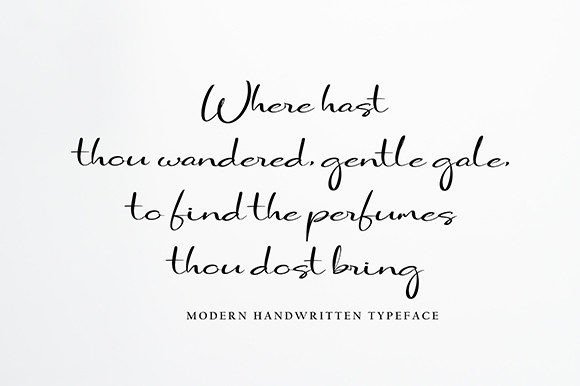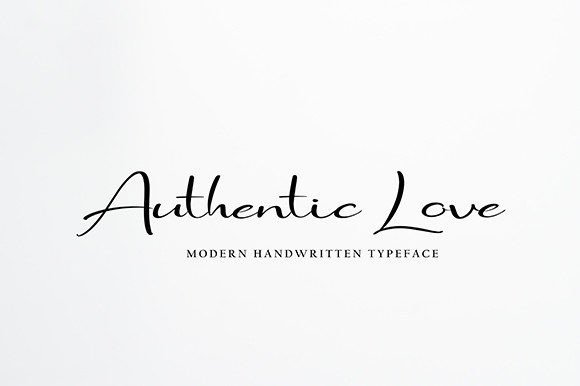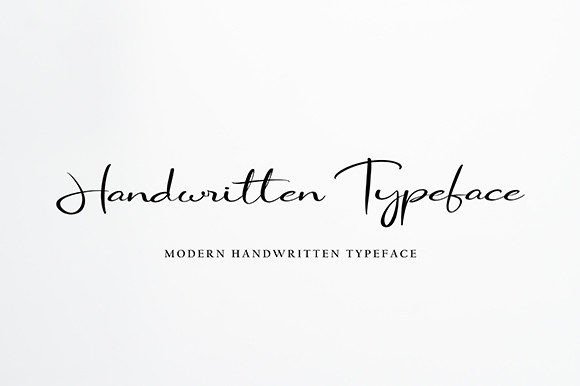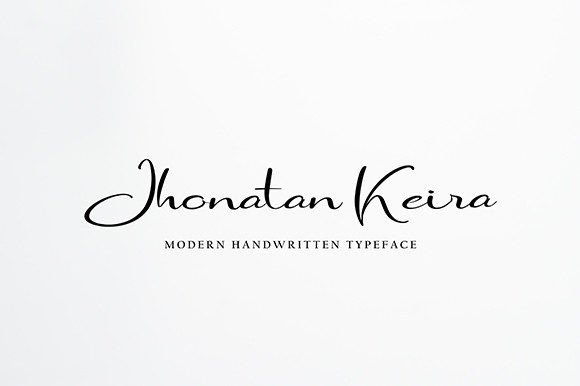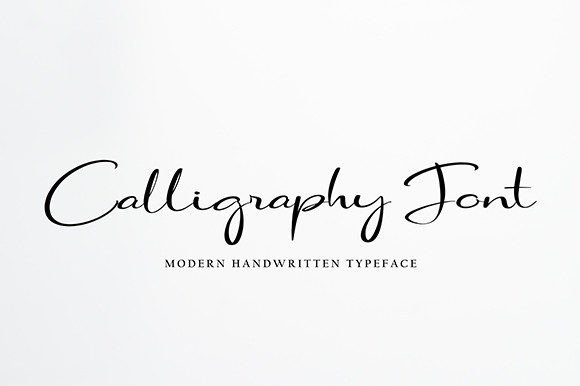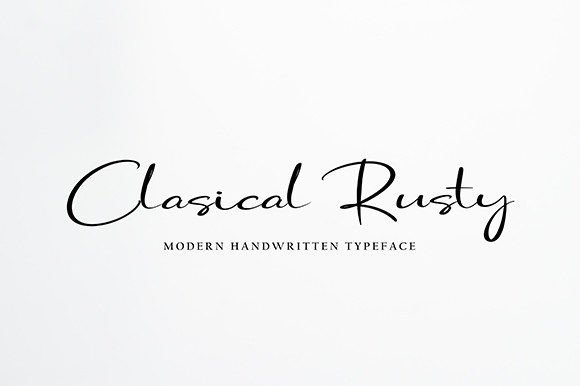
Discover the Elegance of Derribme Font: Elevate Your Designs with a Timeless Handwritten Style
Are you on the lookout for a font that can add a touch of elegance and sophistication to your designs? Look no further than Derribme Font, a beautiful, flowing handwritten font that is sure to capture your heart. With its distinct and timeless style, Derribme is perfect for designers and crafters who want to create stunning visual content that stands out from the crowd.
What is Derribme Font?
Derribme Font is a carefully crafted handwritten font that boasts an elegant touch, making it ideal for a wide range of projects. Whether you’re working on a branding campaign, a website design, or a crafting project, Derribme is sure to bring a level of sophistication and refinement that will elevate your work to new heights.
Key Features of Derribme Font
- Flowing Handwritten Style: Derribme Font features a beautiful, flowing handwritten style that is both elegant and refined.
- Elegant Touch: The font’s elegant touch makes it perfect for projects that require a level of sophistication and refinement.
- Distinct and Timeless Style: Derribme’s distinct and timeless style ensures that your designs will stand out from the crowd and remain relevant for years to come.
- Perfect for a Wide Range of Projects: Whether you’re working on a branding campaign, a website design, or a crafting project, Derribme Font is the perfect choice.
Why Choose Derribme Font?
So, why should you choose Derribme Font for your next project? Here are just a few reasons why Derribme stands out from the crowd:
- Unique and Eye-Catching: Derribme Font is a unique and eye-catching font that is sure to grab attention and leave a lasting impression.
- Versatile: The font is versatile and can be used for a wide range of projects, from branding and advertising to website design and crafting.
- Elegant and Refined: Derribme’s elegant and refined style makes it perfect for projects that require a level of sophistication and refinement.
- Easy to Read: The font is easy to read, making it perfect for body text and other applications where readability is key.
How to Use Derribme Font
Using Derribme Font is easy! Here are a few tips to get you started:
- Pair it with Other Fonts: Derribme Font pairs well with other fonts, so feel free to experiment with different combinations to find the perfect look for your project.
- Use it for Headings and Titles: Derribme’s elegant style makes it perfect for headings and titles, where it can add a touch of sophistication and refinement.
- Experiment with Different Sizes and Colors: Don’t be afraid to experiment with different sizes and colors to find the perfect look for your project.
In conclusion, Derribme Font is a beautiful, flowing handwritten font that is sure to elevate your designs to new heights. With its elegant touch, distinct and timeless style, and versatility, Derribme is the perfect choice for designers and crafters who want to create stunning visual content that stands out from the crowd. So why wait? Fall in love with Derribme Font today and start creating spectacular designs that will leave a lasting impression!
Derribme Font: The Perfect Choice for Designers and Crafters
Derribme Font is the perfect choice for designers and crafters who want to add a touch of elegance and sophistication to their work. Whether you’re working on a branding campaign, a website design, or a crafting project, Derribme is sure to bring a level of refinement and sophistication that will elevate your work to new heights. So why wait? Try Derribme Font today and see the difference it can make!